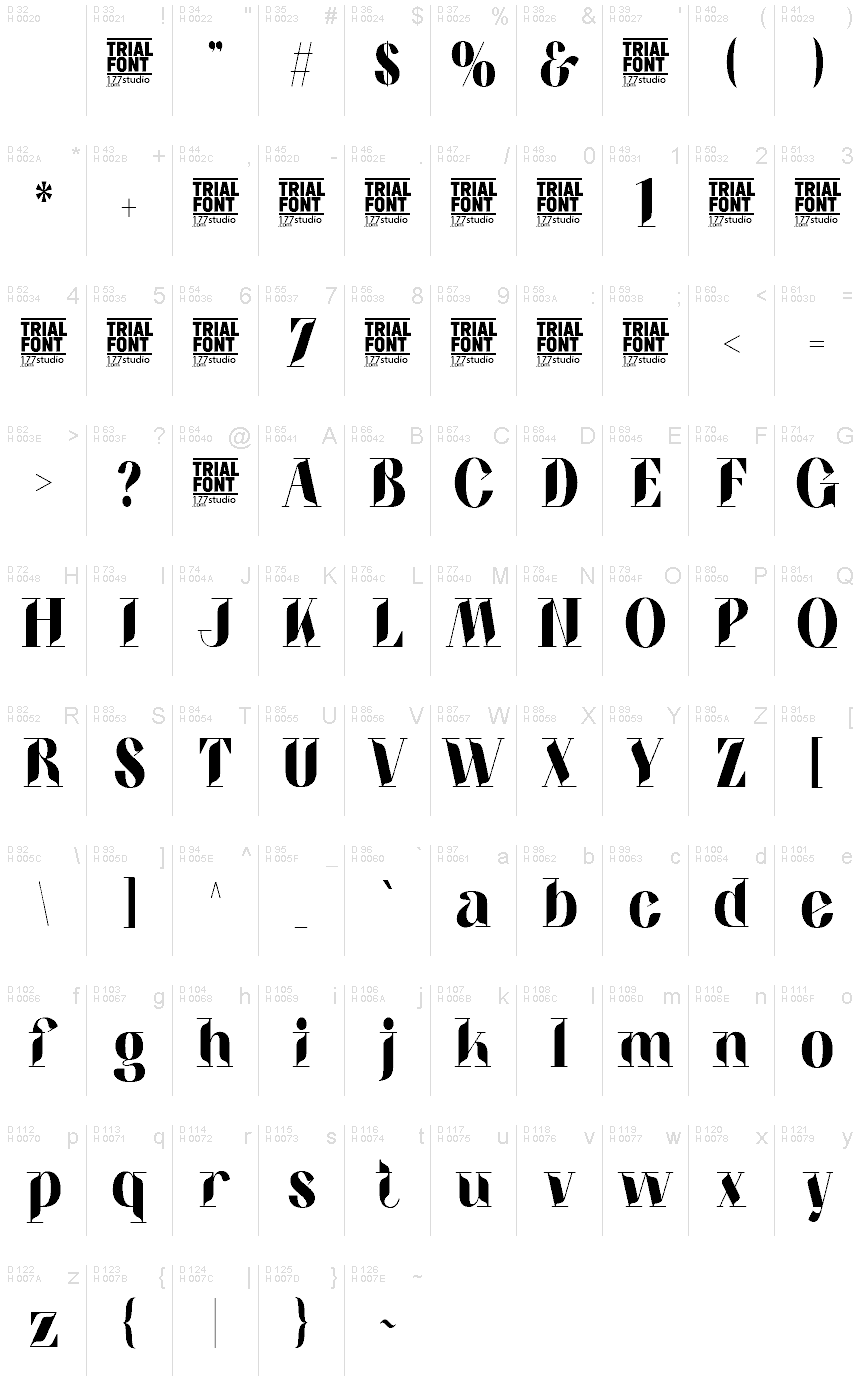
Acedian Demo Regular
Acedian font is a dynamic display font by 177Studio with an elegant, artistic flair. Featuring decorative elements, it conveys a sophisticated mood achieved through the balance of modern aesthetics and classic influences.
The free display font is ideal for art projects, book covers, magazine layouts, digital collages, branding visual identity work, presentations design plans, event invitations and tickets (especially fairs and concerts), posters as well as accessory packaging.